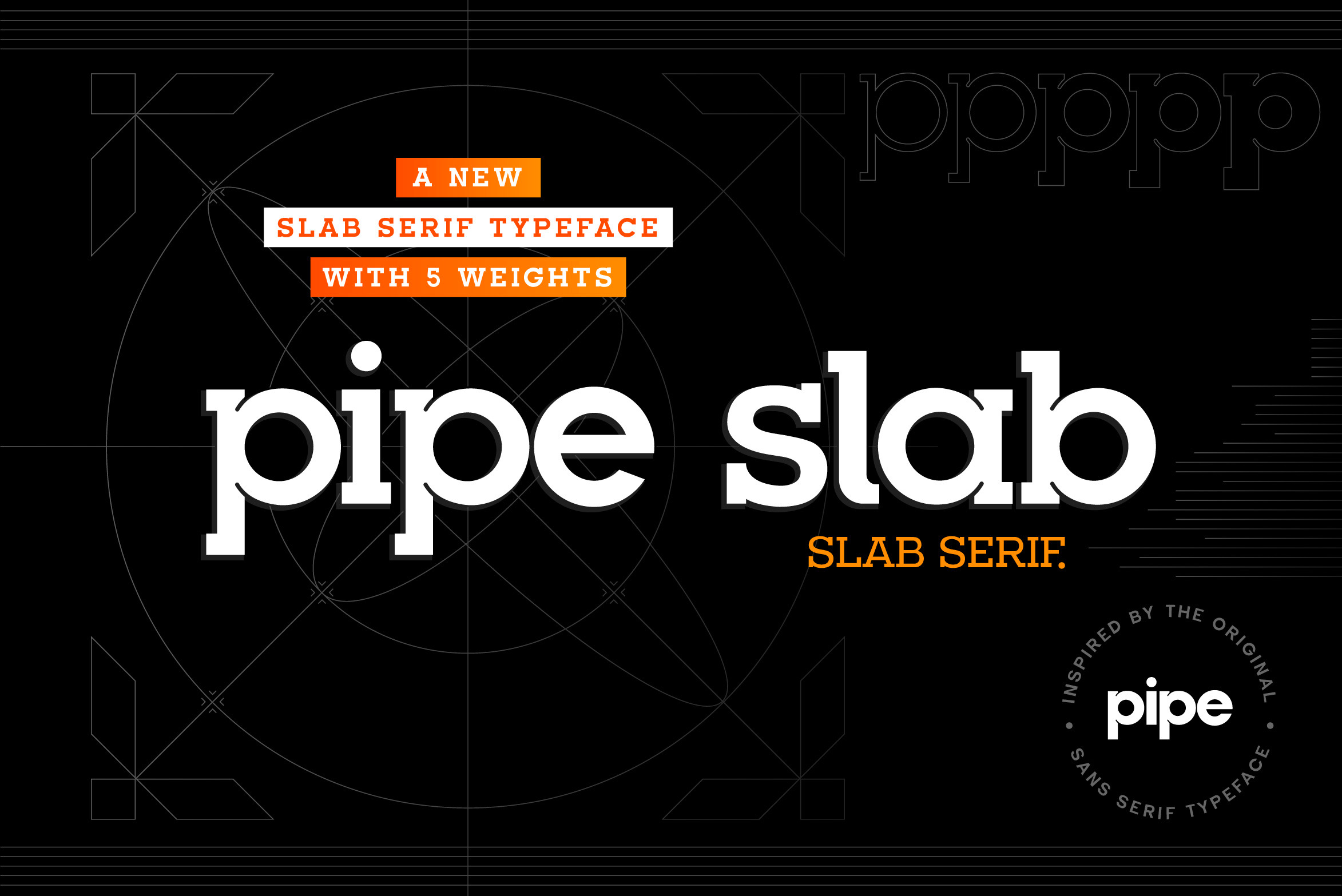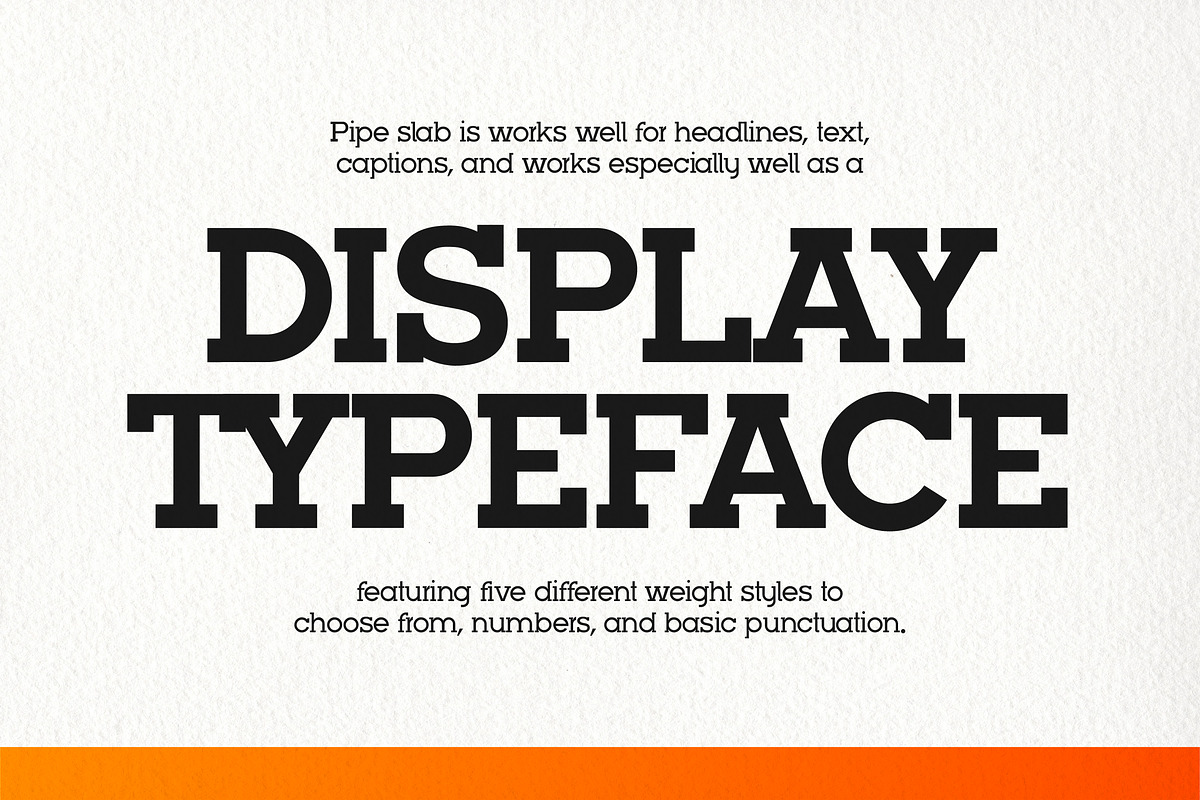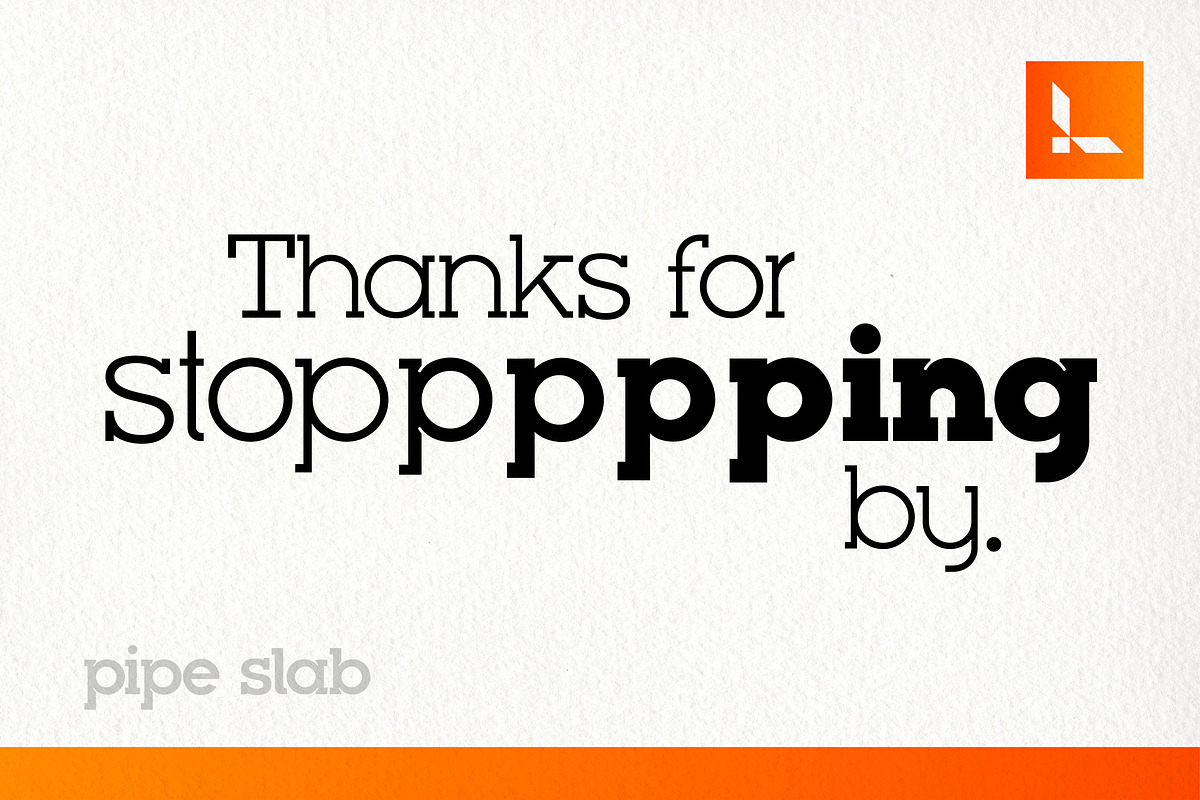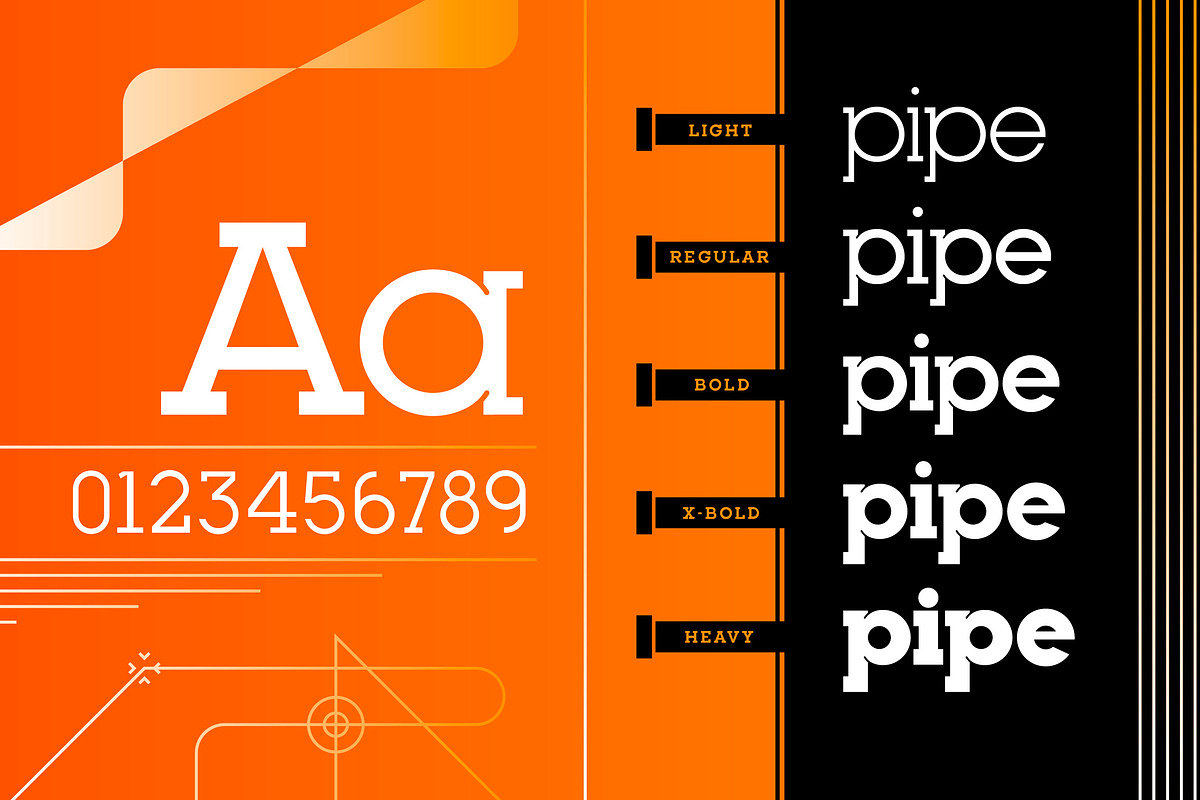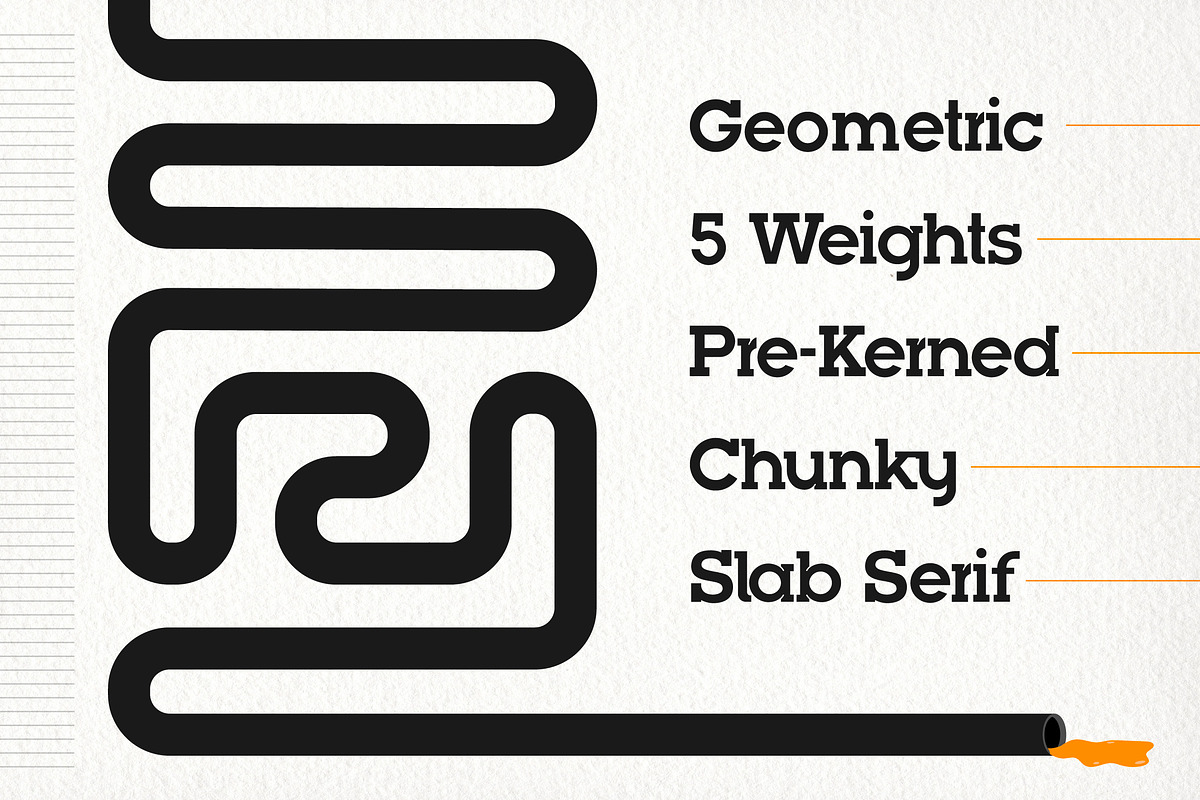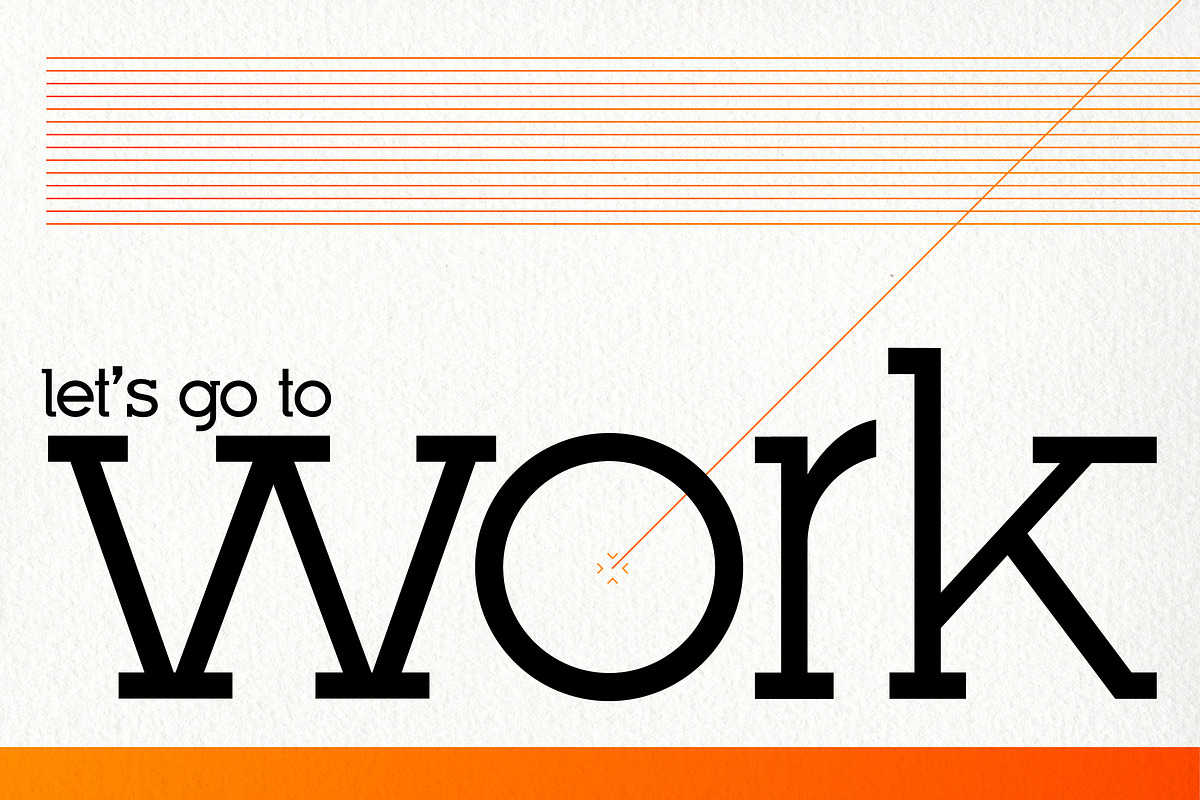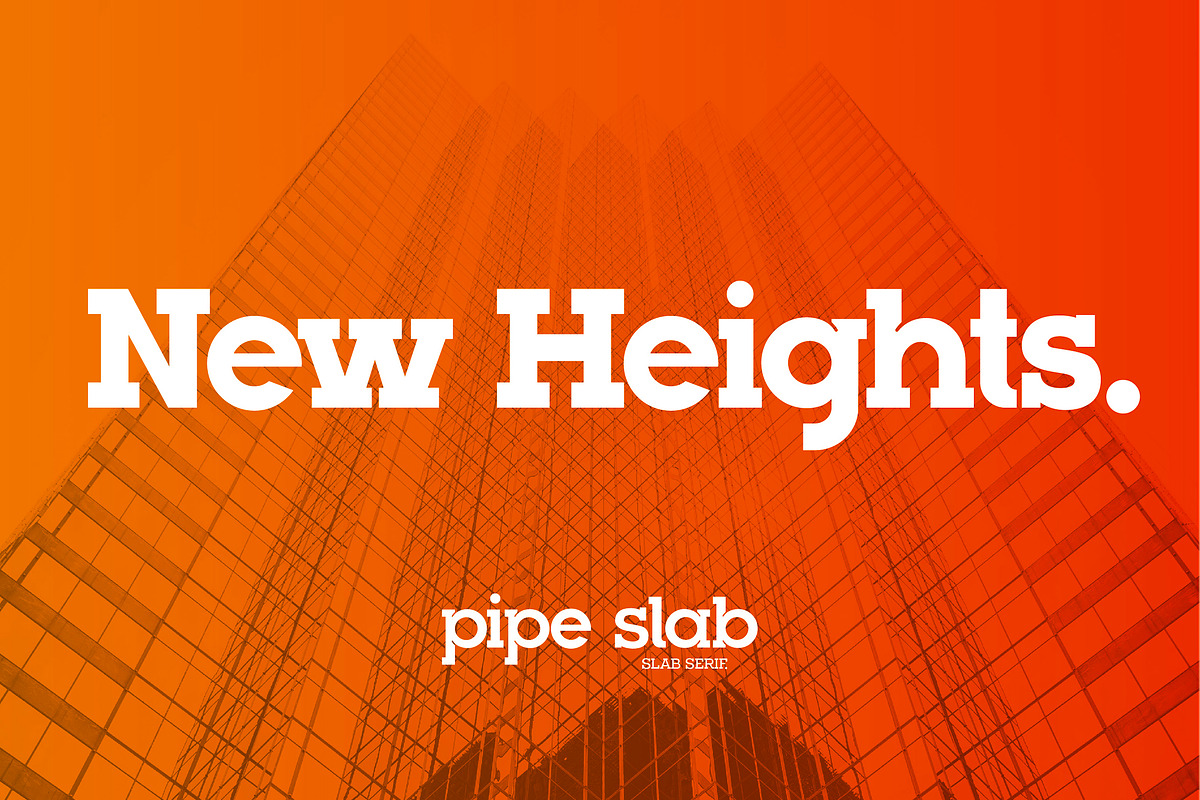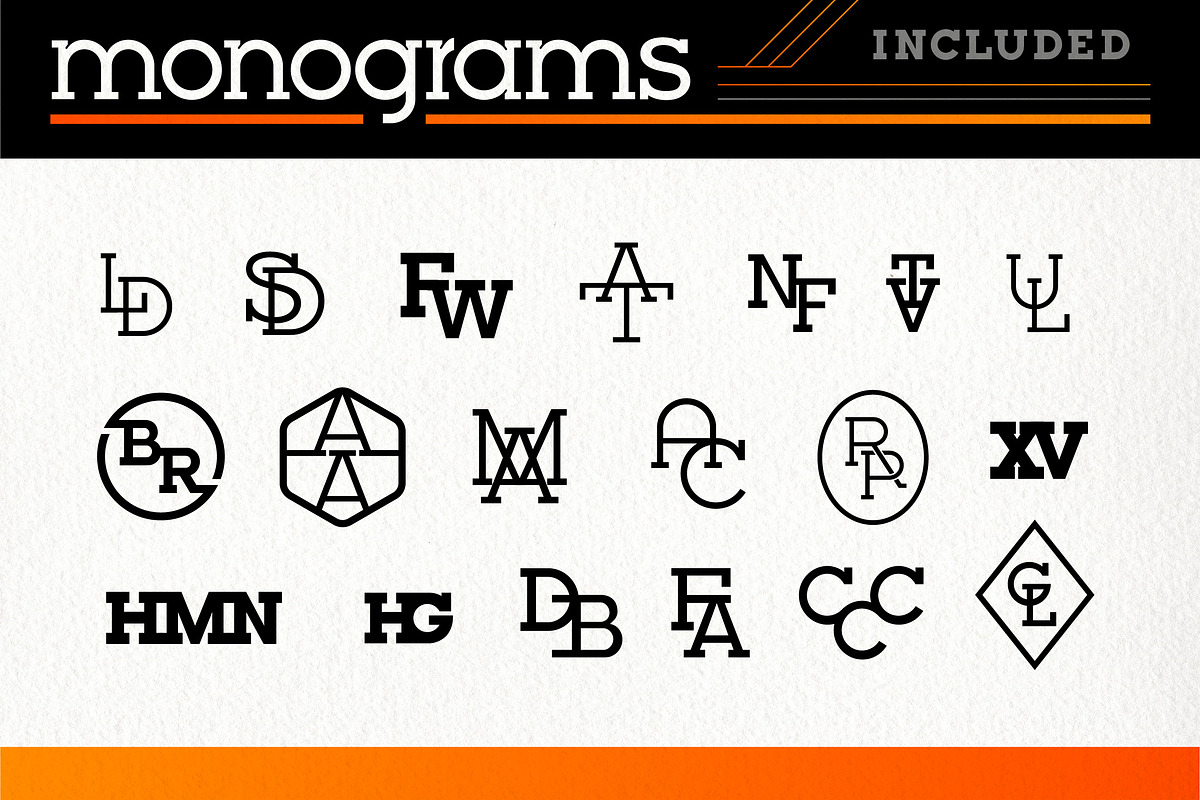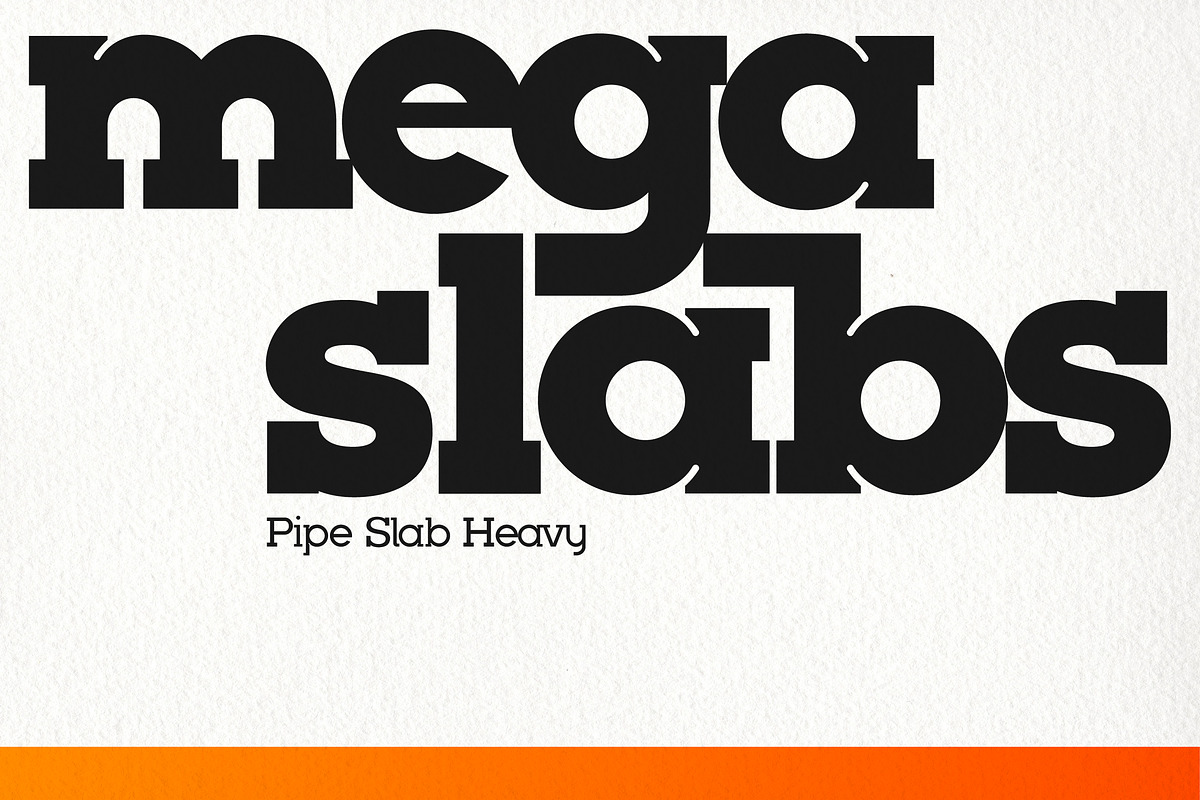
Pipe Slab - Slab Serif Typeface
Pipe Slab is a slab serif font family with 5 different weight options included. Inspired by real-world objects and ideas, Pipe Slab uses geometric shapes for its basic construction. The font utilizes a high x-height to allow for lowercase letters to have a similar impact as the uppercase letterforms. This font is inspired by the sans serif variant, Pipe Sans. Check that one out in the shop while you're at it!
Pipe Slab includes lowercase, UPPERCASE, numbers, and basic punctuation.
- 5 Weights
- Basic Punctuation
- Alternate Letterforms
- Pre-kerned